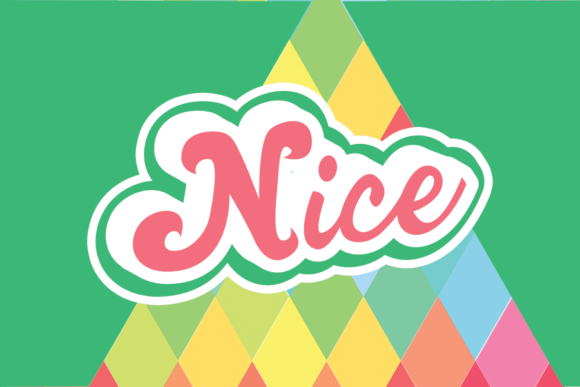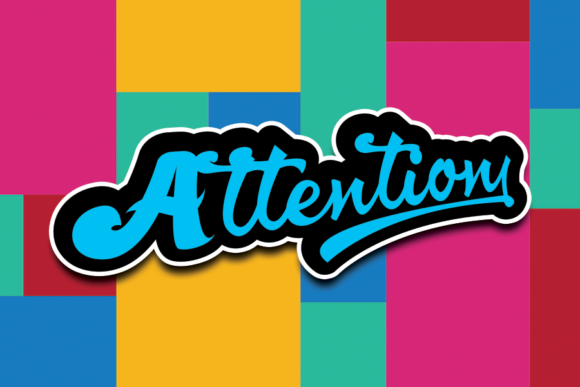
Sandbox Font
db-ku.com - Script & Handwritten -- Sandbox is a retro, cursive and bold handwritten font, crafted to give your headlines and logotype projects a stylish touch. This font reads as strong, confident, and dynamic and can add tons of nostalgic character to your designs.